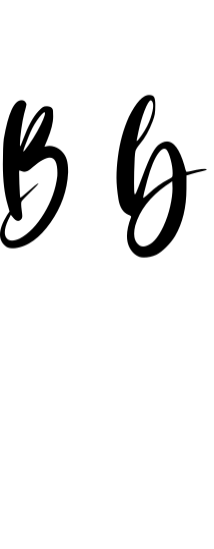
Better Easter Font: Elevate Your Easter Designs with a Touch of Romance
As the Easter season approaches, designers and creatives are on the lookout for the perfect font to capture the essence of this joyous holiday. If you’re seeking a typeface that exudes romance, elegance, and timeless charm, look no further than Better Easter Font. In this article, we’ll introduce you to this beautiful handwritten font, explore its features, and discuss how it can elevate your Easter designs.
Introducing Better Easter Font
Better Easter is a charming handwritten typeface that embodies the spirit of romance, making it an ideal choice for your Easter season projects. This elegant font is designed to add a touch of sophistication and whimsy to your designs, whether you’re working on logos, branding, inspirational quotes, or any other Easter-related project.
What Makes Better Easter Font Special?
Better Easter Font offers a range of features that make it an excellent choice for Easter designs. Here are just a few advantages of using this beautiful typeface:
- Unique and Timeless Charm: Better Easter Font boasts a distinctive, handcrafted look that sets it apart from other fonts. Its elegant strokes and curves evoke a sense of nostalgia and romance, perfect for creating memorable Easter designs.
- PUA Encoded: This font is PUA (Private Use Area) encoded, giving you easy access to the entire glyph and its strokes. This means you can effortlessly navigate and customize the font to suit your design needs.
- Ease of Use: With Better Easter Font, your Easter day design tasks become much easier and aesthetically pleasing. The font’s versatility and charm make it simple to create stunning designs that capture the essence of the holiday.
Design Ideas with Better Easter Font
Better Easter Font is an incredibly versatile typeface that can be used in a variety of design projects. Here are some ideas to get you started:
- Easter Logo Design: Create a memorable Easter logo for your business or brand using Better Easter Font. The font’s elegant charm and whimsical touch make it perfect for crafting a unique and eye-catching logo.
- Social Media Graphics: Add a touch of romance and sophistication to your Easter-themed social media graphics, such as Facebook posts, Instagram stories, and Pinterest pins.
- Inspirational Quotes: Use Better Easter Font to create stunning inspirational quotes that capture the essence of the Easter season. The font’s elegant strokes and curves make it ideal for crafting quotes that resonate with your audience.
- Easter Branding: Elevate your Easter branding with Better Easter Font. Use the font to create cohesive and visually appealing branding materials, such as business cards, brochures, and flyers.
Tips and Tricks for Using Better Easter Font
To get the most out of Better Easter Font, here are some tips and tricks to keep in mind:
- Experiment with Colors: Better Easter Font looks stunning in a range of colors, from soft pastels to rich jewel tones. Experiment with different color combinations to find the perfect look for your Easter design.
- Play with Pairings: Better Easter Font pairs beautifully with other fonts, such as sans-serif fonts and script fonts. Experiment with different pairings to create visually appealing and harmonious designs.
- Don’t Forget the Details: The details matter when working with Better Easter Font. Take the time to adjust the font size, spacing, and kerning to ensure your design looks polished and professional.
Better Easter Font is a beautiful and charming handwritten typeface that captures the essence of romance and elegance. With its unique and timeless charm, PUA encoding, and ease of use, this font is perfect for creating stunning Easter designs. Whether you’re working on logos, branding, inspirational quotes, or any other Easter-related project, Better Easter Font is sure to elevate your designs and leave a lasting impression.